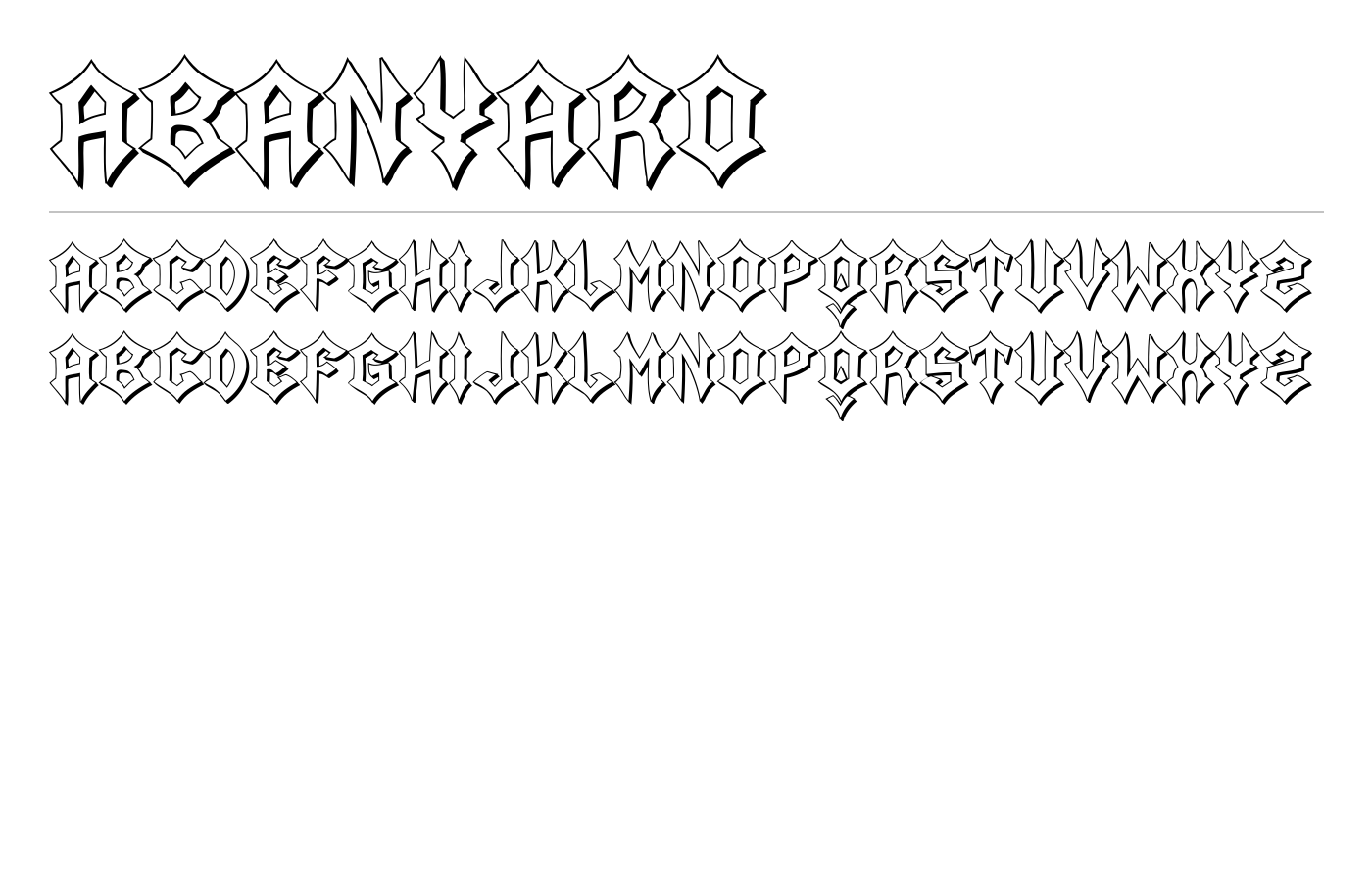
Abanyaro is a bold, blackletter-style font with sharp, angular letterforms that evoke a strong Gothic and medieval aesthetic. Its intricate, pointed details and uniform stroke weight give it a striking, dramatic presence, making it ideal for headlines, logos, and designs that require an edgy, vintage vibe. This font works particularly well for branding in music, fashion, and cultural projects seeking to convey strength and historic flair.
Abanyaro Font
About Abanyaro Font